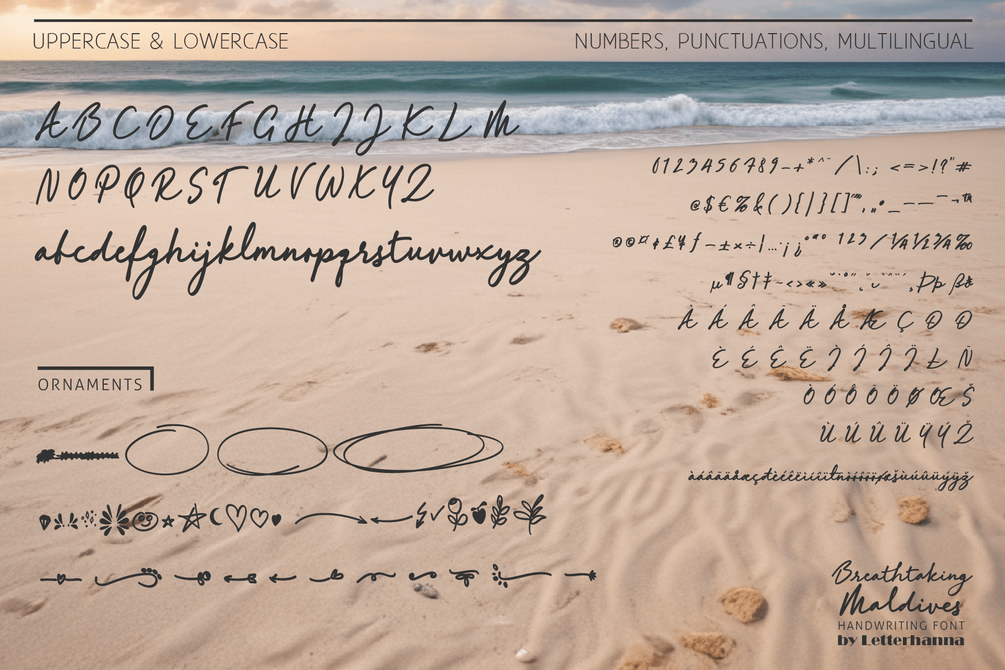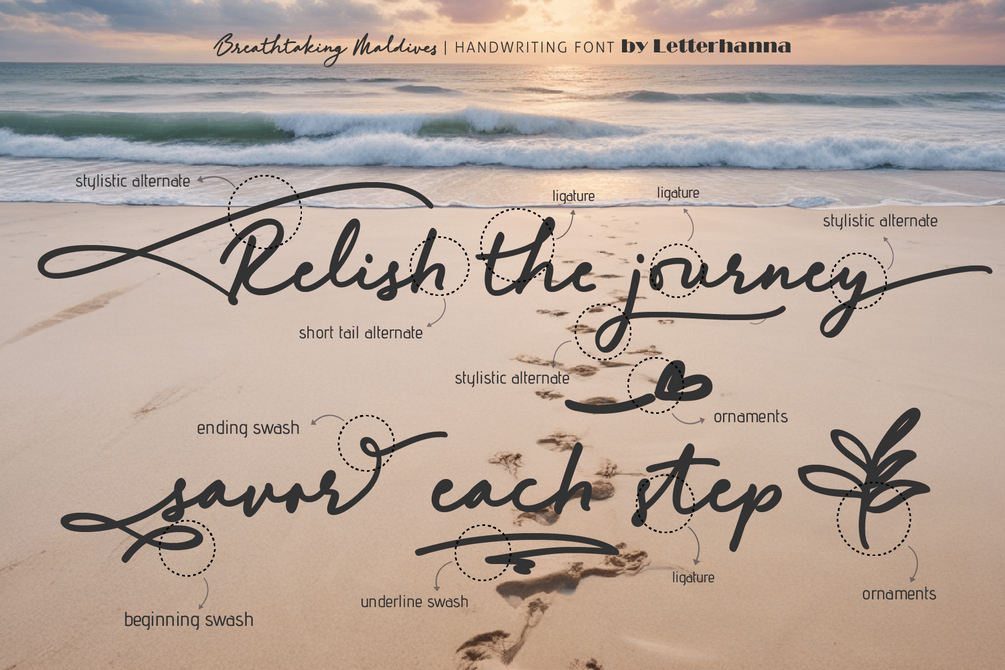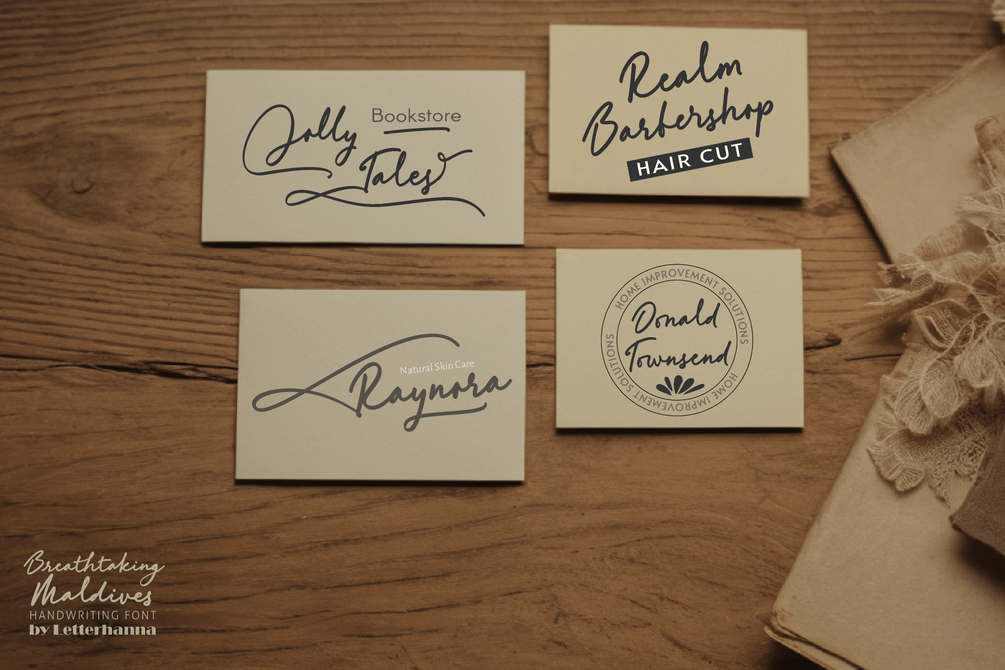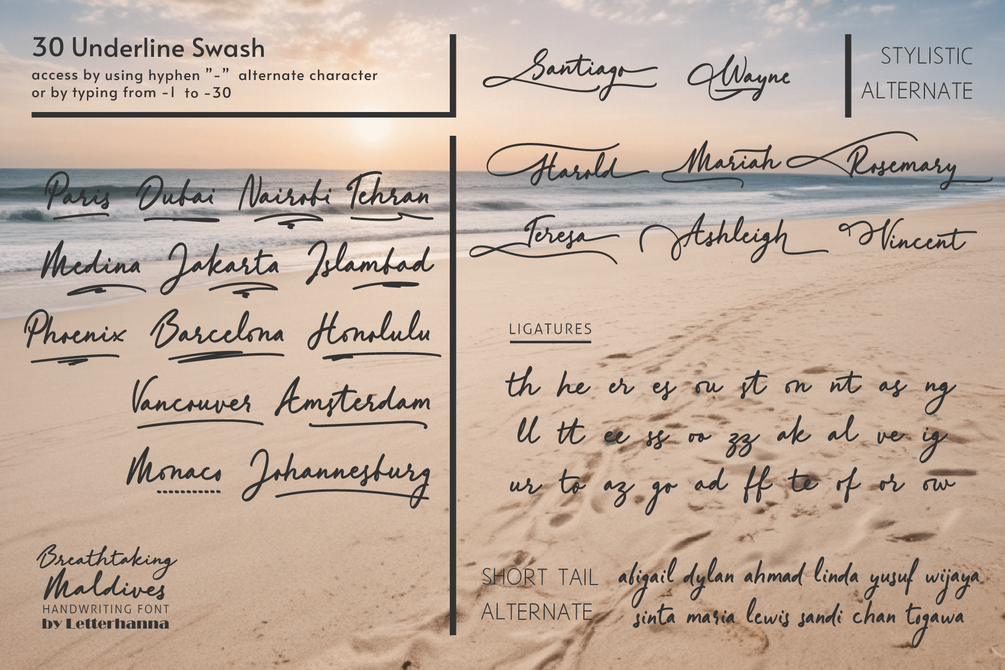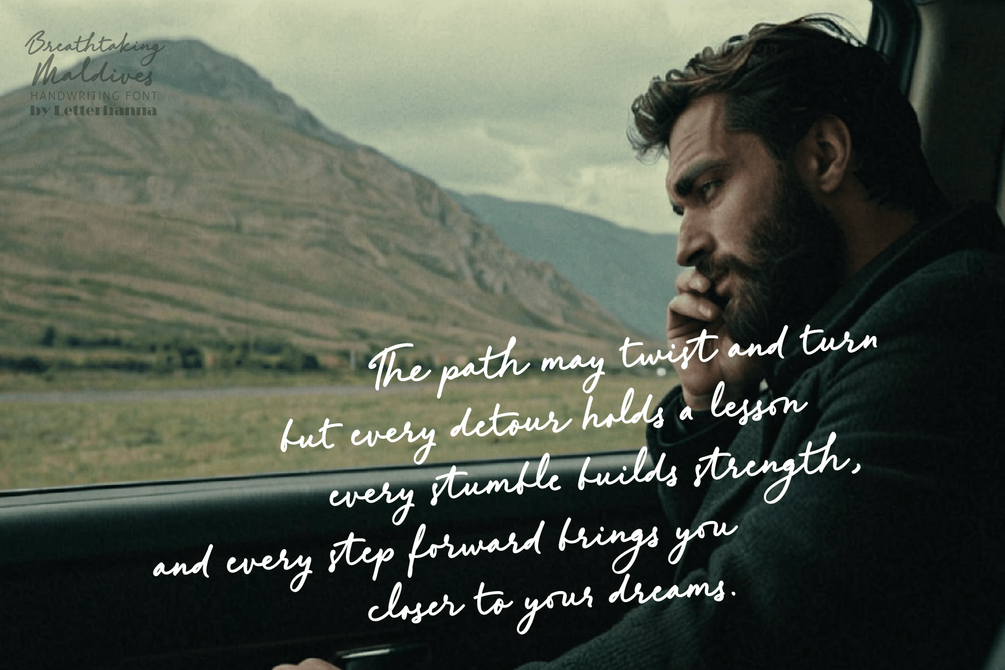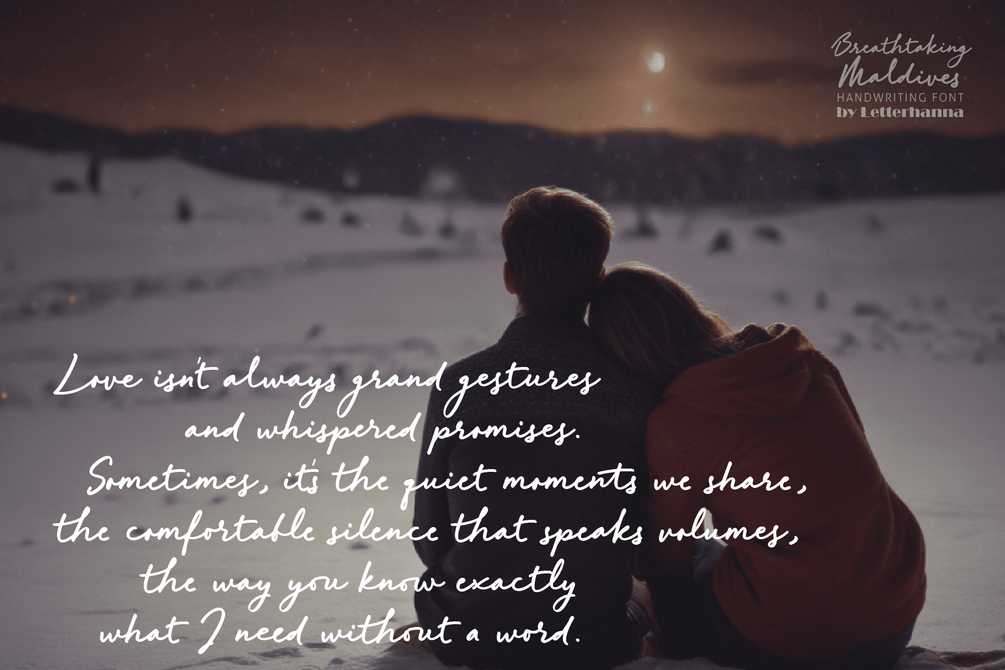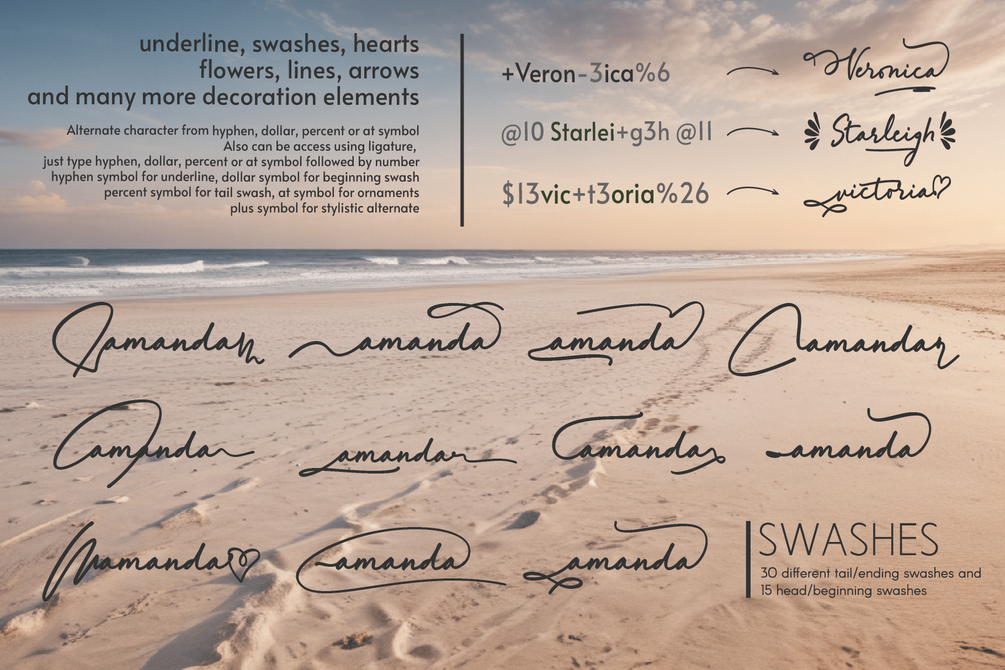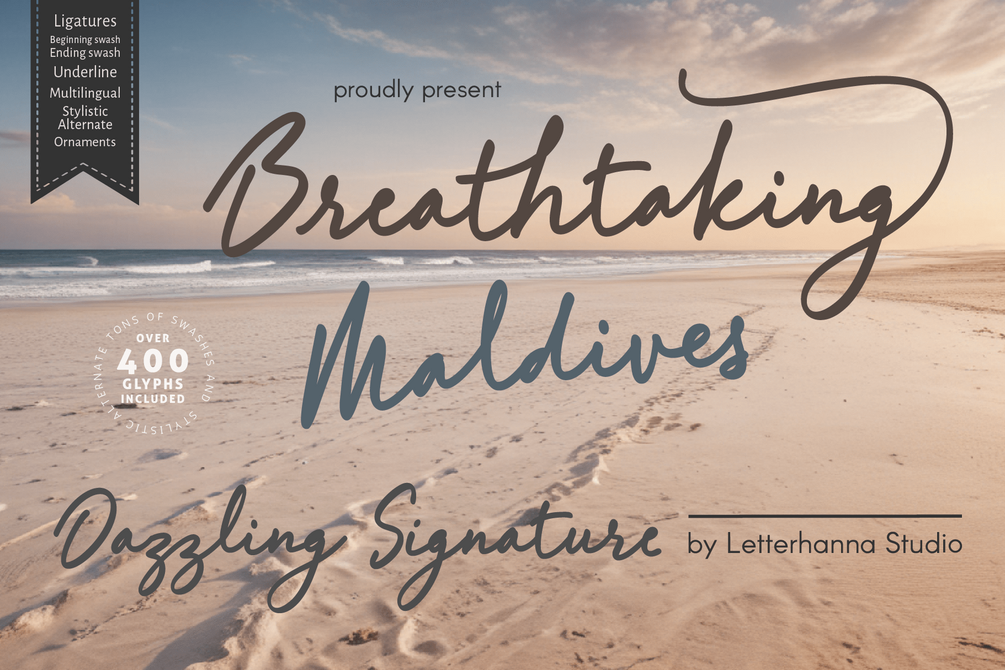
Experience the beauty of effortless elegance with Breathtaking Maldives, a bold signature font designed to make every word stand out. With its confident strokes, this typeface captures the essence of sophistication and modern charm.
Perfect for branding, logos, wedding invitations, social media, and high-end designs, Breathtaking Maldives adds a touch of exclusivity to any project. Whether you're crafting a stylish signature, an elegant headline, or a luxurious brand identity, this font will leave a lasting impression.